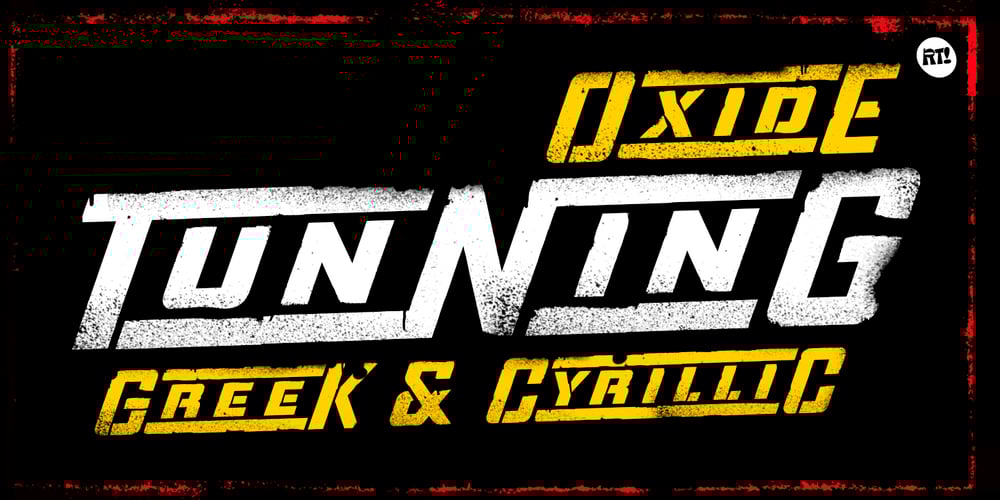
TuNninG OxidE
TuNninG OxidE font
TuNninG OxidE Font Family was designed by Rodrigo Araya Salas and published by RodrigoTypo. TuNninG OxidE contains 4 styles and family package options. Tunning Oxide, is an alternative version of Tunning Pro, it contains different styles as alternatives, it also contains Cyrillic and Greek, It is special for stock titles